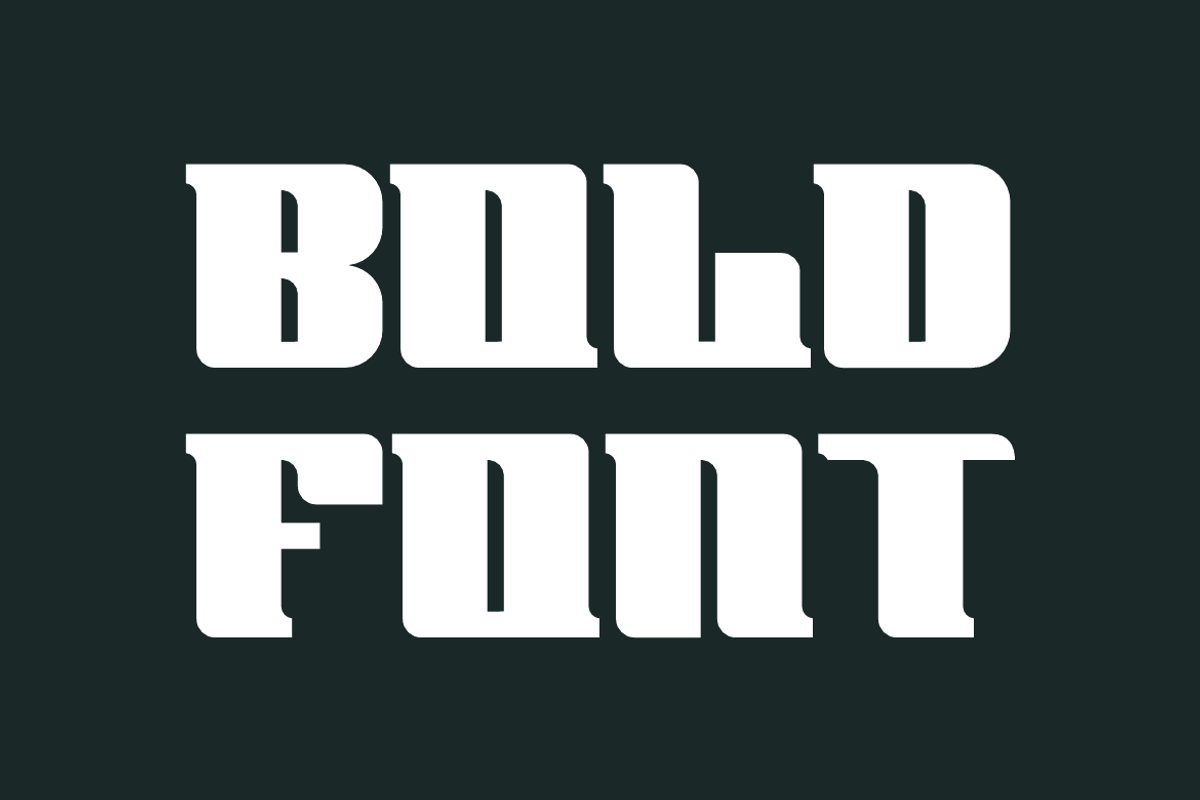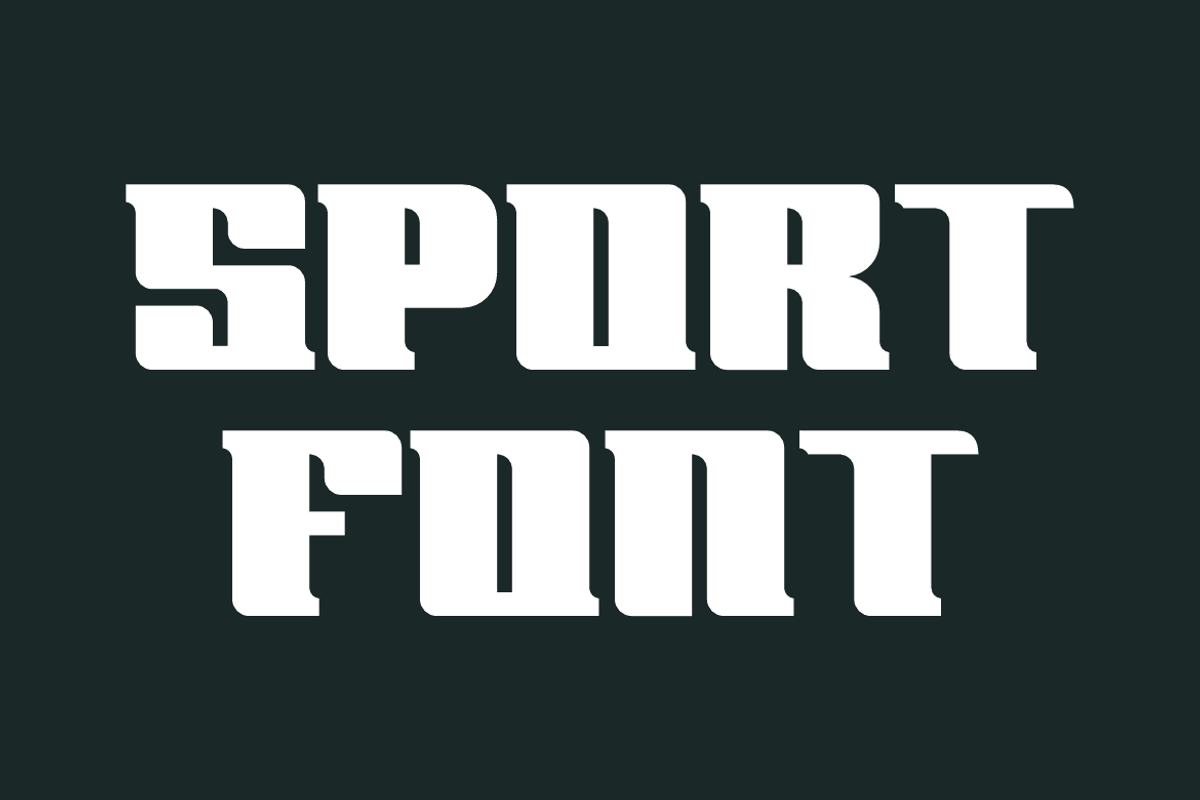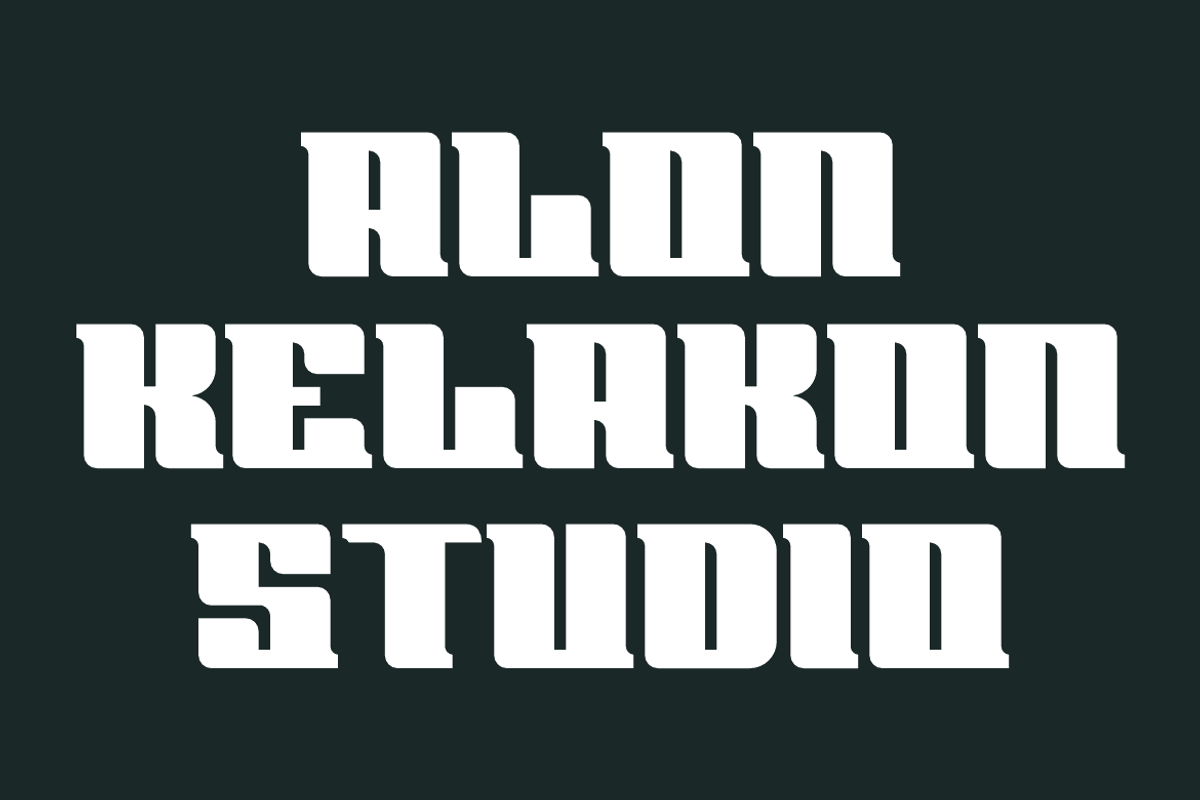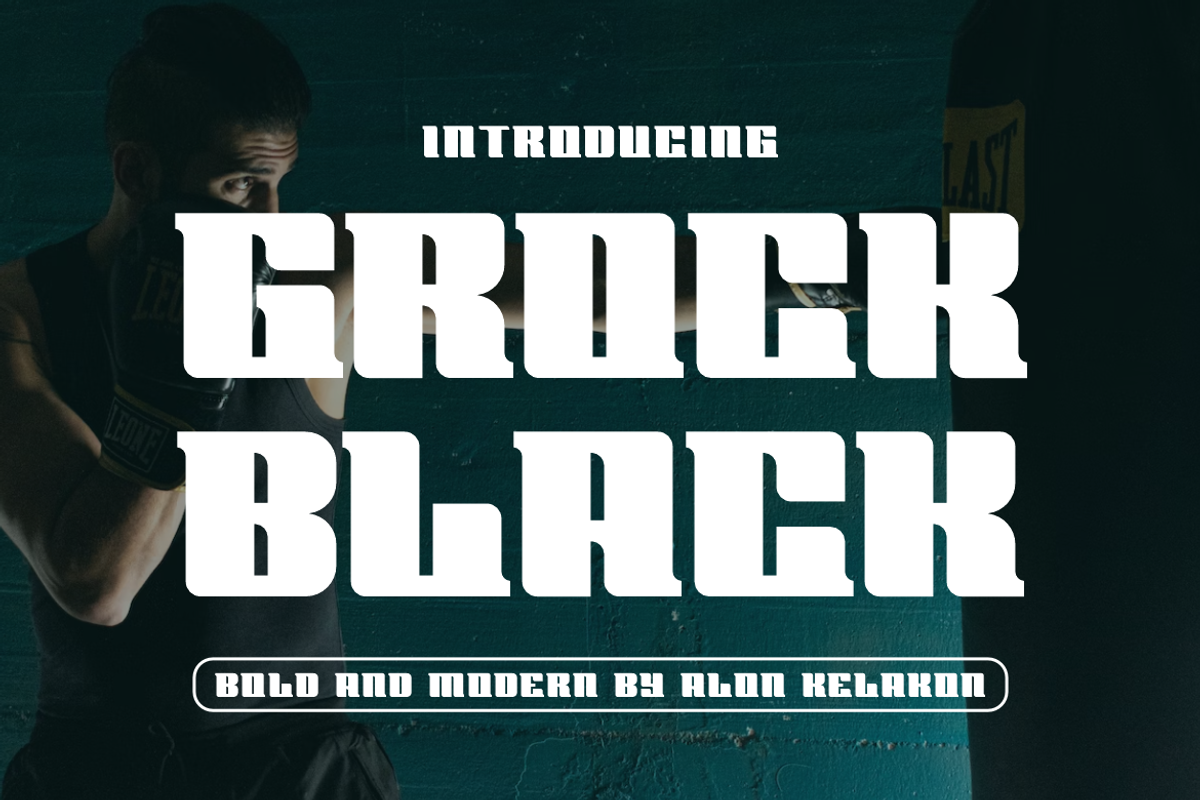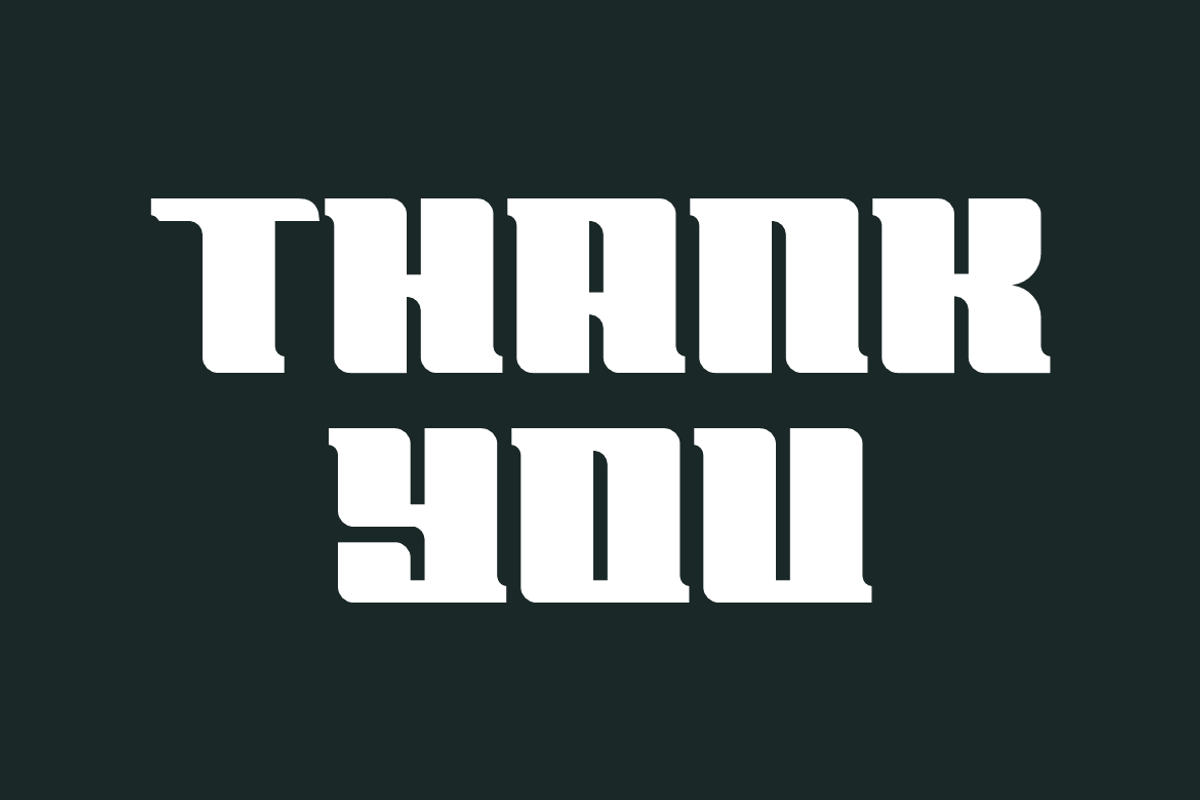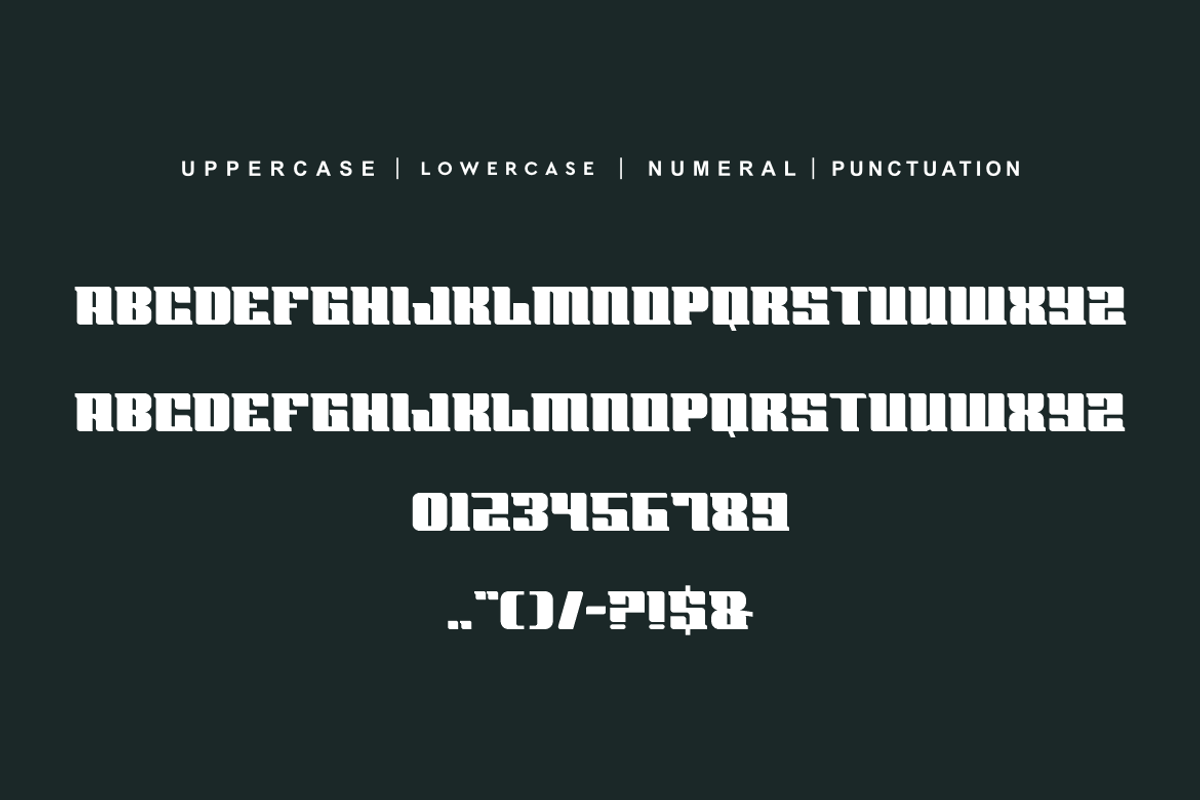
Grock Black
Grock Black Font is unique . Ready to use for your design like labeling, movie sceen, poster, movie title, gigs, album covers, logos, and much more.